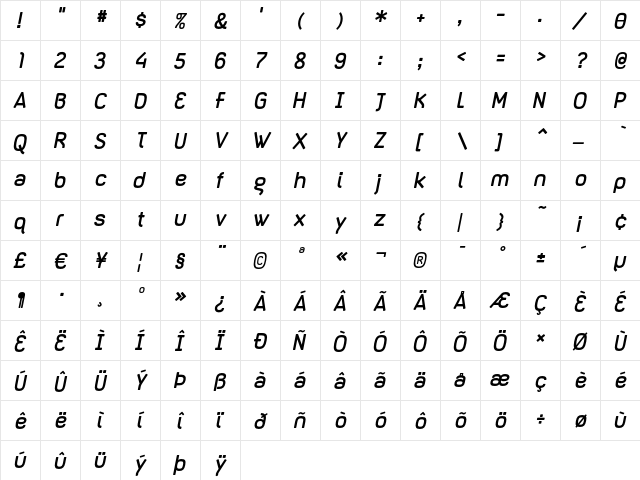
Dispose Bold Oblique
| Foundry | Lee Fasciani |
| Designer | Lee Fasciani |
Design Context for Dispose Typeface
Dispose offers clean, dependable letterforms without strong stylistic allegiance, making it a practical choice for designers who need flexibility. The dynamic lean of this cut emphasises speed and emphasis in any layout. The heavy weight commands attention and anchors typographic hierarchies.
Pro Tip: Use Dispose for emphasis, pull quotes, and subheadings where its slanted energy can add rhythm to the layout.